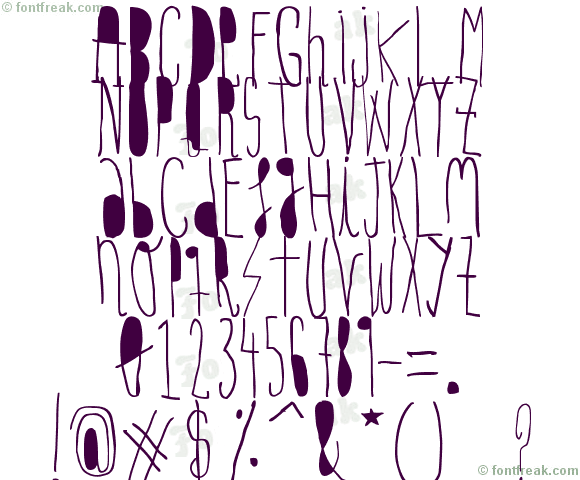
woodcutter hand light
The Woodcutter Hand Light font, crafted by Woodcutter Manero, falls within the category of handwritten typefaces, exuding a casual and friendly vibe. This font showcases a unique blend of playful strokes and light weight, making it visually engaging while remaining easy to read. The irregularities in the letterforms contribute to its handcrafted aesthetic, perfect for projects that require a personal touch. The spacing is balanced, allowing for clear legibility even at smaller sizes, while the subtle decorative elements add character without overwhelming the overall design.
This versatile typeface is ideal for a variety of applications. It shines brightly on wedding invitations, where its whimsical charm can add a romantic flair. Similarly, it makes for eye-catching movie posters, helping to convey a sense of fun and creativity. Restaurant menus can also benefit from the inviting nature of the Woodcutter Hand Light font, enticing customers with a casual and approachable style. Additionally, small business owners looking to create memorable branding will find this font suitable for logos and promotional materials, as it fosters a connection with potential clients. Content creators, such as bloggers and social media managers, can utilize this font to enhance their visual storytelling, making their posts stand out in crowded feeds.